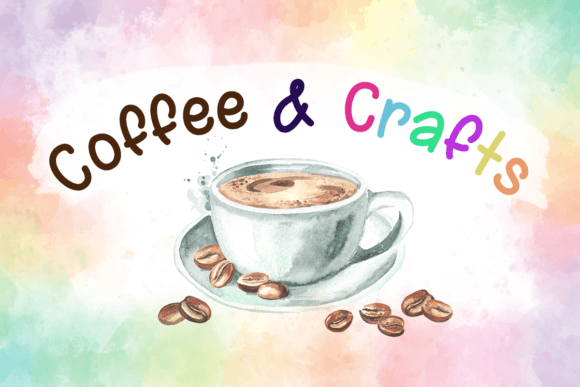
Dive into the world of Coffee and Crafts Font - a remarkable script font family that will capture your heart and transform your creative projects into extraordinary masterpieces. With its playful and whimsical nature, this font will be your perfect companion for adding a touch of charm and uniqueness to your designs.
Unleash your imagination and explore the endless possibilities that await you with Coffee and Crafts Font. Dive into the world of Etsy shop logos and banners, where this font will elevate your brand identity and make it stand out from the crowd. Create captivating TikTok videos that captivate your audience with their charm and wit. Design enchanting greeting cards that convey your heartfelt messages in a truly special way. Embark on sublimation projects that showcase the beauty of this font's intricate details.
Express your creativity through personalized gifts that carry a unique and sentimental touch. With Coffee and Crafts Font, every project you undertake will become a testament to your artistic vision and passion for creating something truly extraordinary. Don't miss this chance to add a touch of magic to your designs and leave a lasting impression on all who encounter your work.